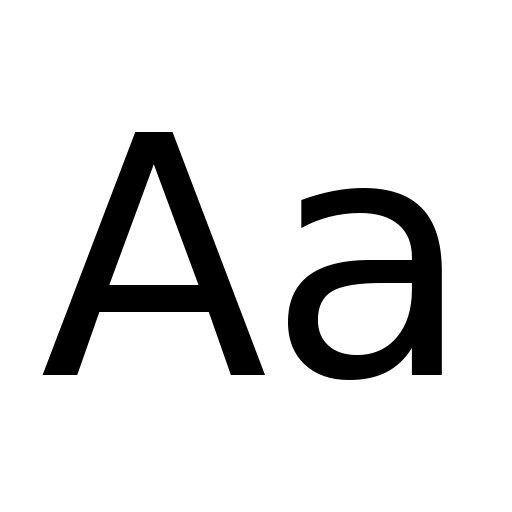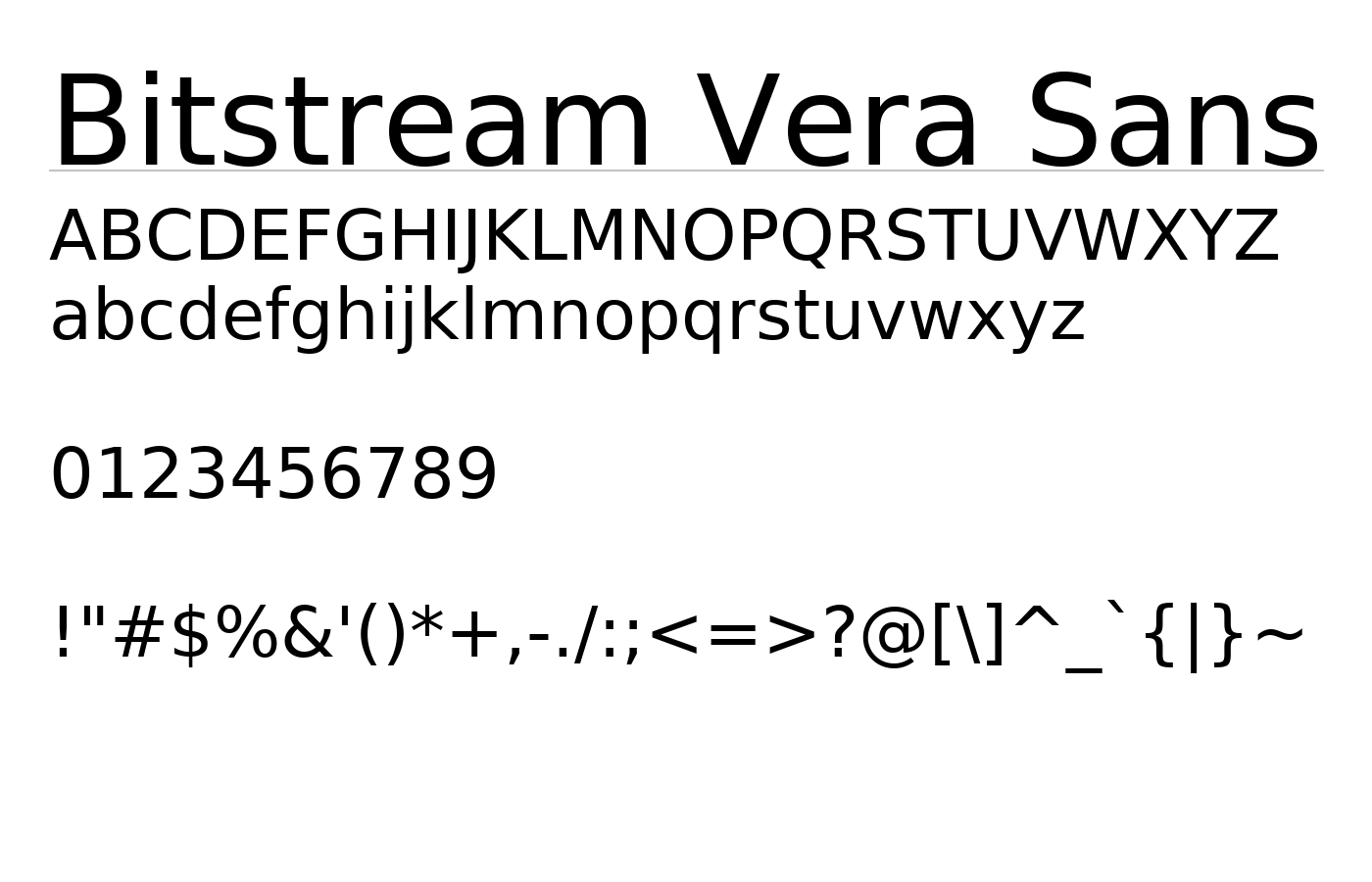
Bitstream Vera Sans is a clean, modern sans serif font characterized by a balanced x-height and a straightforward, geometric stroke style. Its regular weight and open letterforms provide excellent readability, making it ideal for digital interfaces, user-friendly websites, and clear editorial content. This font’s neutral and approachable design lends itself well to professional branding and versatile applications where clarity and simplicity are key.
Bitstream Vera Sans Font
About Bitstream Vera Sans Font